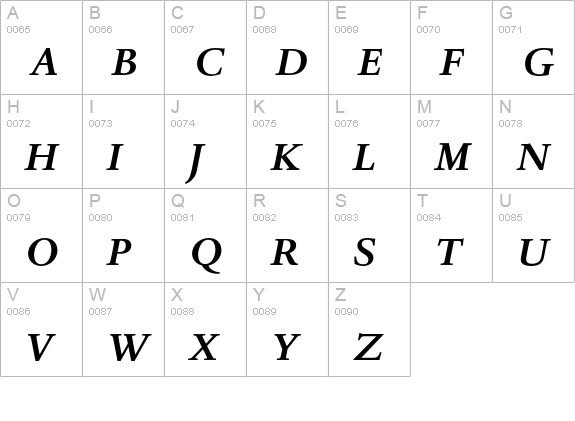
DTL Romulus T Caps Bold Italic is a strong, high-contrast, italic variant in the DTL typeface family \xE2\x80\x94 well suited to headlines, attention-grabbing titles, and strong calls-to-action.
The DTL Romulus T Caps Bold Italic font is a striking and elegant typeface that exudes sophistication and modernity. With its bold and italicized design, this font is perfect for making a statement in any design project. The strong, angular shapes of the letters give a sense of power and authority, making it ideal for headlines, logos, and branding materials. What sets the DTL Romulus T Caps Bold Italic font apart is that it is available for free download at FontsMarket.com. This means that you can easily access this high-quality font without any cost, making it a valuable addition to your font library. Whether you're a designer looking for a bold and impactful typeface or a business owner seeking a distinctive font for your marketing materials, the DTL Romulus T Caps Bold Italic font is sure to impress. Download it today and elevate your designs with this versatile and eye-catching font.